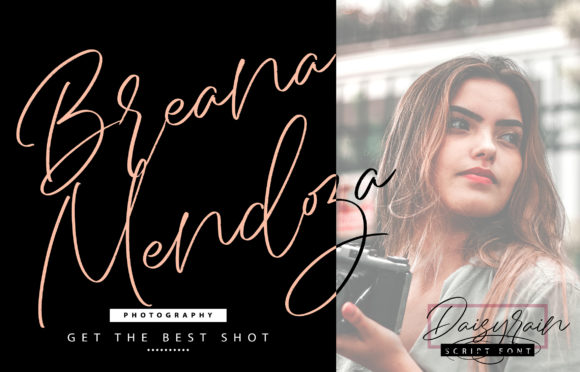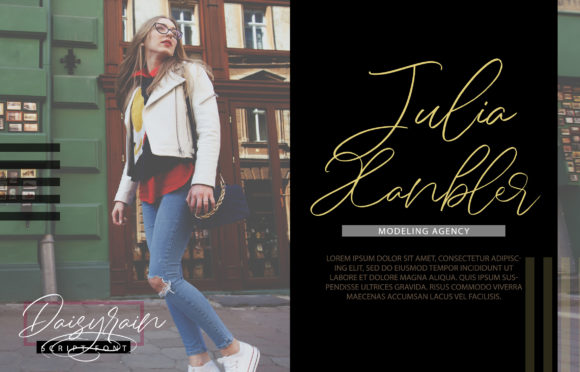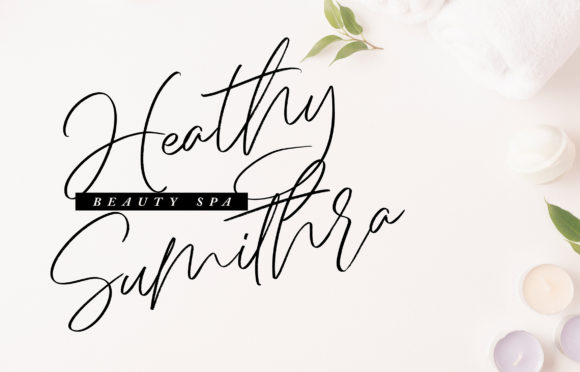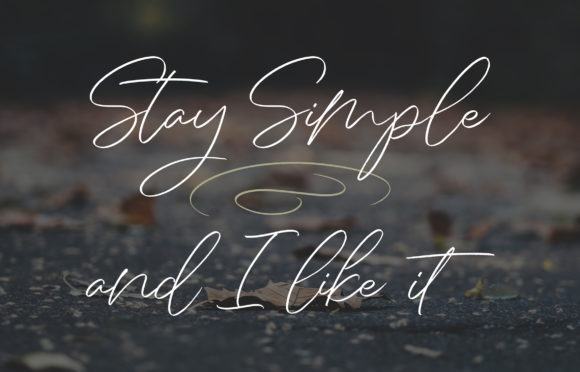
Daisy Rain Font
About Daisy Rain Font
Daisy Rain feels sophisticated and modern. This handwritten font is a beautiful combination of timeless elegance and authentic calligraphy. Fall in love with its authentic feel and use it to create gorgeous wedding invitations, beautiful stationary art, eye-catching social media posts, and cute greeting cards.